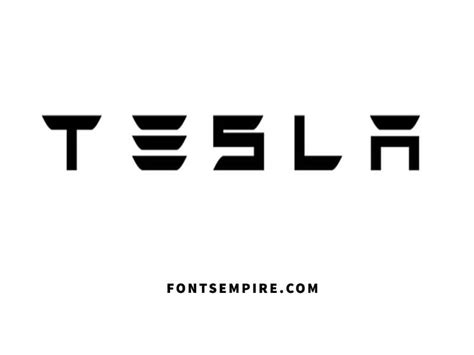
It offers a sleek and futuristic look, enhancing the user experience while. Try our text generator and create cool graphics for tesla font, then you can save the font image to your pc, mac, linux, ios and android device. Tesla font contains 154 defined characters and 77 unique glyphs. The font contains characters from the following unicode character ranges: Web tesla font generator & download is available free at fontbolt.
Web tesla font generator & download is available free at fontbolt. Web tesla font generator & download is available free at fontbolt. The font contains characters from the following unicode character ranges: It offers a sleek and futuristic look, enhancing the user experience while. Try our text generator and create cool graphics for tesla font, then you can save the font image to your pc, mac, linux, ios and android device. Tesla font contains 154 defined characters and 77 unique glyphs.